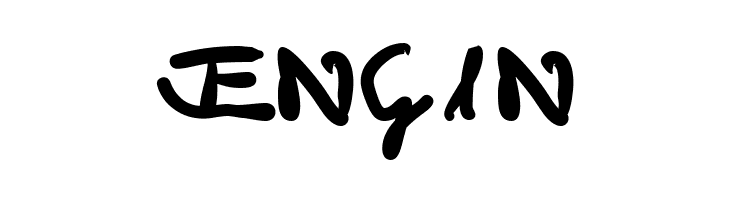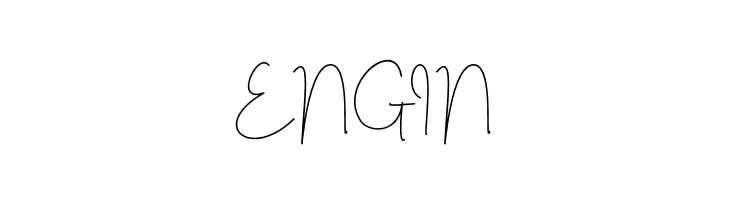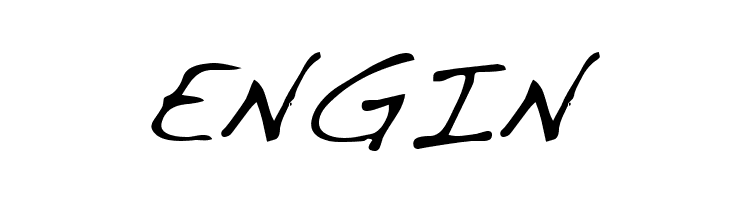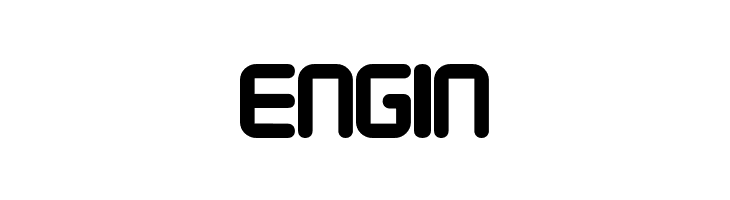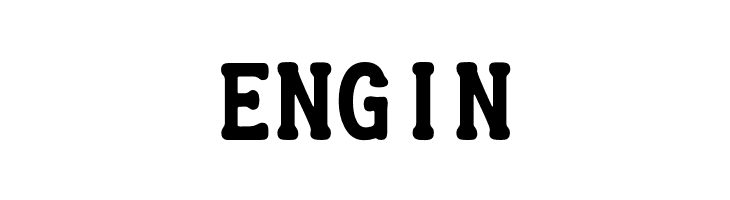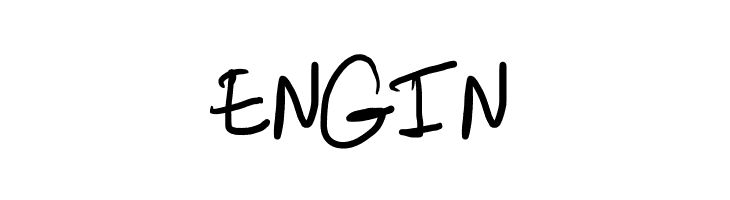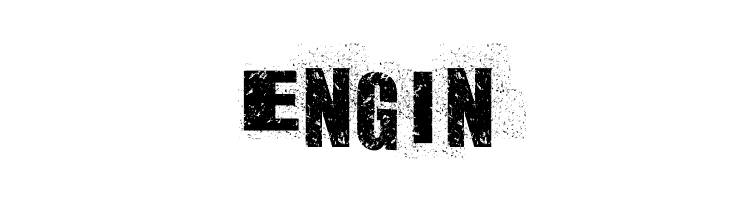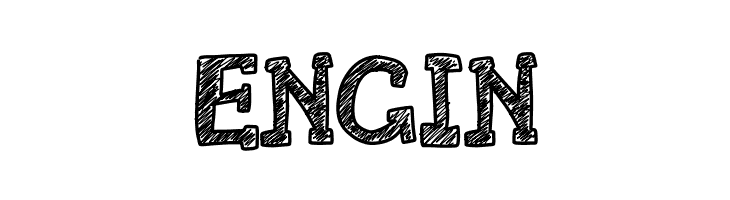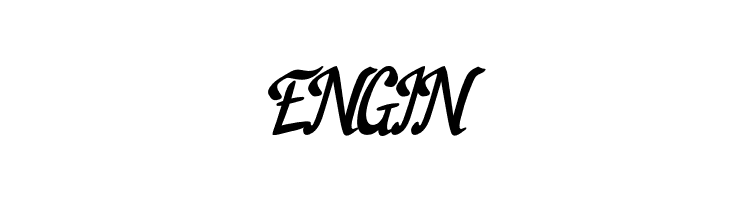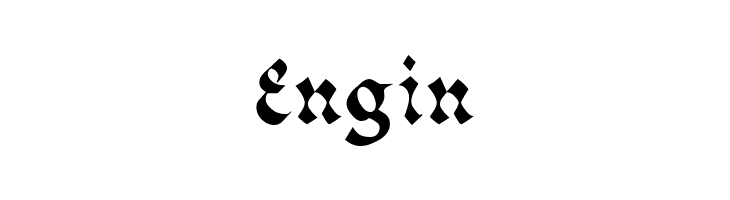
• Camille Script
An elegant script font with flowing, interconnected characters and a sophisticated style.
• Celinea
A whimsical, handwritten font with a light and airy style.
• charanga
• Christian Icons B Monograms
A bold, blackletter font with Christian monograms and symbols, ideal for historical themes.
• CreditCard
A bold, rounded font with a playful and approachable style.
• Da Vincian
• Dakota Regular
A casual, handwritten font with a smooth, flowing style.
• DEATHLANE
( Fonts by Aly K. Salazar )
A bold, distressed font with a grunge texture and rugged appearance.
• Delusional
( Fonts by Aly K. Salazar )
A playful, hand-drawn font with a sketch-like texture and bold outlines.
• DesignerBlock
A bold, geometric font with rounded edges and a modern, futuristic style.